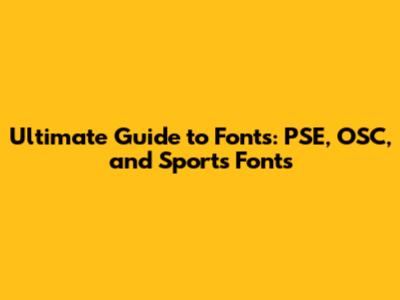
Hey guys! Ever wondered about the world of fonts and how they play a massive role in everything we see, from logos to sports graphics? Today, we’re diving deep into some cool font categories, including PSE, OSC, adobo (yes, like the dish!), ESC, BSCSE, general fonts, and, of course, those dynamic sports fonts. Buckle up, because this is going to be a font-tastic journey!
Understanding PSE Fonts
Let's kick things off with PSE fonts. Now, PSE, in the context of fonts, might refer to various things depending on where you're seeing it. Often, it stands for Portable Symbol Encapsulation or something similar related to specific software or design platforms. Understanding the specifics of PSE fonts involves looking at how they are used within particular applications. These fonts are crucial because they ensure symbols and special characters are displayed correctly across different devices and systems. The importance of accurate symbol representation cannot be overstated, especially in fields requiring precision, such as engineering, mathematics, and technical documentation. The nuances of PSE fonts are also important for designers who aim to create visually consistent and professional-looking documents.
When choosing a PSE font, several factors come into play. First, consider the compatibility of the font with your software. Different programs may handle PSE fonts differently, so testing is essential to ensure consistent rendering. Second, assess the range of symbols and characters supported by the font. A comprehensive PSE font should include all the symbols you need for your specific applications. Third, evaluate the visual quality of the symbols. They should be clear, crisp, and aesthetically pleasing. Moreover, consider the licensing terms of the font. Some PSE fonts may have restrictions on commercial use, so be sure to understand the terms before incorporating them into your projects. Also, keep an eye out for updates and support from the font vendor to address any potential issues or compatibility problems. By paying attention to these details, you can select a PSE font that meets your needs and enhances your work.
Another aspect of PSE fonts is their role in web design. With the increasing demand for interactive and dynamic web content, PSE fonts are becoming essential for displaying icons and symbols on websites. These fonts can significantly improve the user experience by providing visual cues and enhancing navigation. However, using PSE fonts on the web requires careful consideration of performance and accessibility. Large font files can slow down page loading times, so it's crucial to optimize them for web use. Additionally, ensure that the symbols are accessible to users with disabilities by providing alternative text descriptions. Web developers often use icon fonts, which are a type of PSE font, to create scalable and customizable icons for websites. These fonts can be easily styled with CSS, allowing designers to change the size, color, and other attributes of the icons without affecting the quality. By leveraging PSE fonts effectively, web designers can create engaging and user-friendly websites that stand out from the crowd.
Diving into OSC Fonts
Next up, let’s talk about OSC fonts. OSC could stand for On-Screen Character or be related to a specific organization or standard. In the font world, it’s essential to know the context. OSC fonts are pivotal in user interface design, ensuring that text and symbols are legible and visually appealing on screens. These fonts are carefully crafted to maintain clarity and readability, even at small sizes and across various display resolutions. The role of OSC fonts extends beyond mere aesthetics; they directly impact user experience and productivity. A well-designed OSC font can reduce eye strain, improve comprehension, and enhance overall satisfaction.
When selecting an OSC font, consider the specific requirements of your project. First, evaluate the font's legibility at different sizes. A good OSC font should remain readable even at small sizes, ensuring that users can easily read text on screens. Second, assess the font's compatibility with different operating systems and devices. The font should render consistently across various platforms to provide a seamless user experience. Third, consider the font's character set. A comprehensive OSC font should include all the characters and symbols needed for your application. Additionally, pay attention to the font's kerning and spacing. Proper kerning and spacing can significantly improve readability and visual appeal. Finally, consider the font's licensing terms. Some OSC fonts may have restrictions on commercial use, so be sure to understand the terms before incorporating them into your projects. By carefully considering these factors, you can select an OSC font that enhances the usability and aesthetics of your application.
OSC fonts also play a crucial role in mobile app development. With the proliferation of mobile devices, it's more important than ever to choose fonts that are optimized for small screens. OSC fonts designed for mobile use are typically lightweight and highly legible, ensuring that users can easily read text on their smartphones and tablets. These fonts often feature optimized hinting, which is a technique used to improve the rendering of fonts at small sizes. Mobile app developers should also consider the font's impact on battery life. Large font files and complex rendering can consume significant battery power, so it's essential to choose fonts that are both visually appealing and energy-efficient. By carefully selecting OSC fonts for mobile apps, developers can create user-friendly and engaging experiences that keep users coming back for more.
Exploring Adobo (Adobe) Fonts
Okay, so "adobo fonts" might be a fun typo, but let’s assume we're talking about Adobe fonts. Adobe Fonts (formerly Typekit) is a massive library of fonts that you can access with an Adobe Creative Cloud subscription. These fonts are top-notch and used by professionals worldwide. Adobe Fonts offers a wide range of styles and designs, from classic typefaces to modern and experimental fonts. The convenience of accessing thousands of fonts with a single subscription is a major draw for designers and creatives. With Adobe Fonts, users can easily find the perfect typeface for any project, whether it's a website, a print publication, or a mobile app.
When using Adobe Fonts, it's important to understand the licensing terms. Adobe Fonts are licensed for use with Adobe Creative Cloud applications, and the terms may vary depending on your subscription plan. Some plans may allow you to use the fonts for commercial projects, while others may restrict usage to personal or educational purposes. It's also important to ensure that you're using the fonts in compliance with Adobe's terms of service. This includes properly attributing the fonts when required and avoiding any unauthorized distribution or modification of the font files. By adhering to the licensing terms, you can use Adobe Fonts with confidence, knowing that you're in compliance with the law. Additionally, Adobe Fonts offers tools and resources to help you manage your font library and ensure that you're using the latest versions of the fonts.
Adobe Fonts also integrates seamlessly with other Adobe Creative Cloud applications, such as Photoshop, Illustrator, and InDesign. This integration allows designers to easily access and use Adobe Fonts in their projects without having to manually install or manage font files. The fonts are automatically synced to your Creative Cloud account, ensuring that they're available on all your devices. This seamless integration streamlines the design workflow and allows designers to focus on their creative work without being bogged down by technical details. Furthermore, Adobe Fonts offers features such as font pairing recommendations and visual search, making it easier to find the perfect font for your project. By leveraging the power of Adobe Fonts, designers can create stunning visuals that stand out from the competition.
Understanding ESC Fonts
Moving on to ESC fonts, ESC might stand for Extended Stroke Characters or relate to a specific encoding or font technology. These fonts often have unique or decorative strokes, making them ideal for headings, titles, and display purposes. ESC fonts are valued for their ability to add visual interest and personality to designs. The distinctive strokes and shapes of ESC fonts can create a strong impression and capture the viewer's attention. When used effectively, ESC fonts can enhance the overall aesthetic and communicate the desired message with flair.
When choosing an ESC font, consider the specific tone and style of your project. ESC fonts come in a wide range of styles, from elegant and refined to bold and playful. Select a font that complements the overall design and reinforces the intended message. Also, pay attention to the font's legibility. While ESC fonts are often decorative, they should still be readable, especially when used for longer text passages. Consider the font's kerning and spacing to ensure that the letters are well-balanced and easy to read. Additionally, evaluate the font's compatibility with different software and devices. Some ESC fonts may not render correctly on all platforms, so it's essential to test them before incorporating them into your projects. Finally, consider the font's licensing terms. Some ESC fonts may have restrictions on commercial use, so be sure to understand the terms before using them in your work. By carefully considering these factors, you can select an ESC font that enhances your designs and communicates your message effectively.
ESC fonts are frequently used in branding and advertising to create memorable and impactful visuals. The unique and distinctive characters of ESC fonts can help a brand stand out from the competition and create a lasting impression on customers. These fonts are often used in logos, headlines, and promotional materials to capture attention and communicate the brand's personality. When using ESC fonts in branding, it's important to maintain consistency and use the font sparingly to avoid overwhelming the viewer. The font should be used strategically to highlight key messages and create a cohesive brand identity. By leveraging the power of ESC fonts, businesses can create strong and recognizable brands that resonate with their target audience.
Exploring BSCSE Fonts
Let’s talk about BSCSE fonts. BSCSE could refer to a font used in the field of Bachelor of Science in Computer Science and Engineering, or it could be a very niche or custom font. These fonts are designed to meet the specific needs of computer science and engineering professionals. They often feature clear, legible characters that are easy to read on screens and in print. BSCSE fonts may also include special symbols and characters commonly used in programming and technical documentation. The importance of clear communication in computer science and engineering cannot be overstated, and BSCSE fonts play a critical role in facilitating this communication.
When selecting a BSCSE font, consider the specific requirements of your project. First, evaluate the font's legibility and clarity. The font should be easy to read, even at small sizes, and should not contain any distracting or ambiguous characters. Second, assess the font's compatibility with different programming languages and software tools. The font should render correctly in various development environments and should support the character sets used in different programming languages. Third, consider the font's impact on performance. Large font files can slow down the compilation and execution of code, so it's essential to choose fonts that are lightweight and optimized for performance. Additionally, pay attention to the font's licensing terms. Some BSCSE fonts may have restrictions on commercial use, so be sure to understand the terms before incorporating them into your projects. By carefully considering these factors, you can select a BSCSE font that enhances your productivity and improves the readability of your code.
BSCSE fonts are also used extensively in academic settings for writing research papers, creating presentations, and developing software applications. These fonts provide a professional and consistent look for academic documents and help students and researchers communicate their ideas effectively. When using BSCSE fonts in academic writing, it's important to follow the formatting guidelines of the specific publication or conference. This may include requirements for font size, line spacing, and margins. Additionally, ensure that the font is compatible with the word processing software used by the publication or conference. By adhering to these guidelines, you can increase the chances of your work being accepted and ensure that it is presented in a clear and professional manner.
General Fonts: The Everyday Heroes
Now, let’s get into general fonts. These are your Times New Roman, Arial, Calibri, and other widely used fonts. They are versatile and suitable for a variety of purposes, from body text to headlines. These fonts are the workhorses of the design world, providing a solid foundation for all types of projects. General fonts are known for their legibility, readability, and wide availability. They are designed to be used in a variety of contexts and are compatible with most software and devices.
When choosing a general font, consider the specific requirements of your project. First, evaluate the font's legibility and readability. The font should be easy to read, even at small sizes, and should not contain any distracting or ambiguous characters. Second, assess the font's compatibility with different software and devices. The font should render correctly on various platforms and should support the character sets used in different languages. Third, consider the font's impact on the overall design. The font should complement the overall aesthetic and reinforce the intended message. Additionally, pay attention to the font's licensing terms. Some general fonts may have restrictions on commercial use, so be sure to understand the terms before incorporating them into your projects. By carefully considering these factors, you can select a general font that enhances your designs and communicates your message effectively.
General fonts are also used extensively in web design to create clear and accessible websites. These fonts are optimized for web use and are designed to render correctly on different browsers and devices. When using general fonts in web design, it's important to consider the font's impact on page loading times. Large font files can slow down the loading of a website, which can negatively impact user experience. Therefore, it's essential to choose fonts that are lightweight and optimized for web performance. Additionally, ensure that the font is accessible to users with disabilities by providing alternative text descriptions for images and using appropriate color contrast. By following these best practices, you can create websites that are both visually appealing and user-friendly.
Sports Fonts: Get Your Game On!
Finally, let’s talk about sports fonts. These are fonts designed to evoke a sense of athleticism, energy, and competition. Think bold, dynamic, and often with a bit of an edge. They're perfect for sports teams, athletic brands, and any project that needs to convey a sense of speed and power. Sports fonts are designed to capture the excitement and intensity of athletic competition. They often feature sharp angles, bold strokes, and dynamic shapes that convey a sense of movement and energy. These fonts are frequently used in team logos, jersey designs, and promotional materials to create a strong and memorable visual identity.
When choosing a sports font, consider the specific personality and style of your team or brand. Sports fonts come in a wide range of styles, from classic and traditional to modern and edgy. Select a font that reflects the unique character of your team or brand and resonates with your target audience. Also, pay attention to the font's legibility. While sports fonts are often decorative, they should still be readable, especially when used for names and numbers on jerseys. Consider the font's kerning and spacing to ensure that the letters are well-balanced and easy to read. Additionally, evaluate the font's compatibility with different printing and display methods. Some sports fonts may not render correctly on certain fabrics or screens, so it's essential to test them before incorporating them into your designs. Finally, consider the font's licensing terms. Some sports fonts may have restrictions on commercial use, so be sure to understand the terms before using them in your work. By carefully considering these factors, you can select a sports font that enhances your designs and communicates your message effectively.
Sports fonts are also used extensively in video games and esports to create immersive and engaging gaming experiences. These fonts are designed to be visually appealing and easy to read on screens, even during fast-paced action. When using sports fonts in video games, it's important to consider the font's impact on performance. Large font files can slow down the rendering of the game, which can negatively impact gameplay. Therefore, it's essential to choose fonts that are lightweight and optimized for performance. Additionally, ensure that the font is consistent with the overall aesthetic of the game and contributes to the overall sense of immersion.
So there you have it! A deep dive into PSE, OSC, Adobe, ESC, BSCSE, general, and sports fonts. Each type has its unique characteristics and uses, so understanding them can help you make the best choices for your design projects. Happy font hunting, everyone!